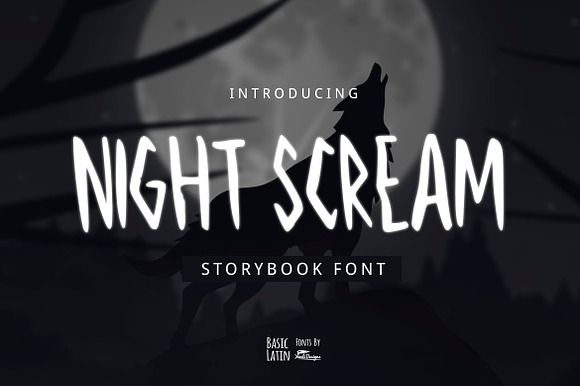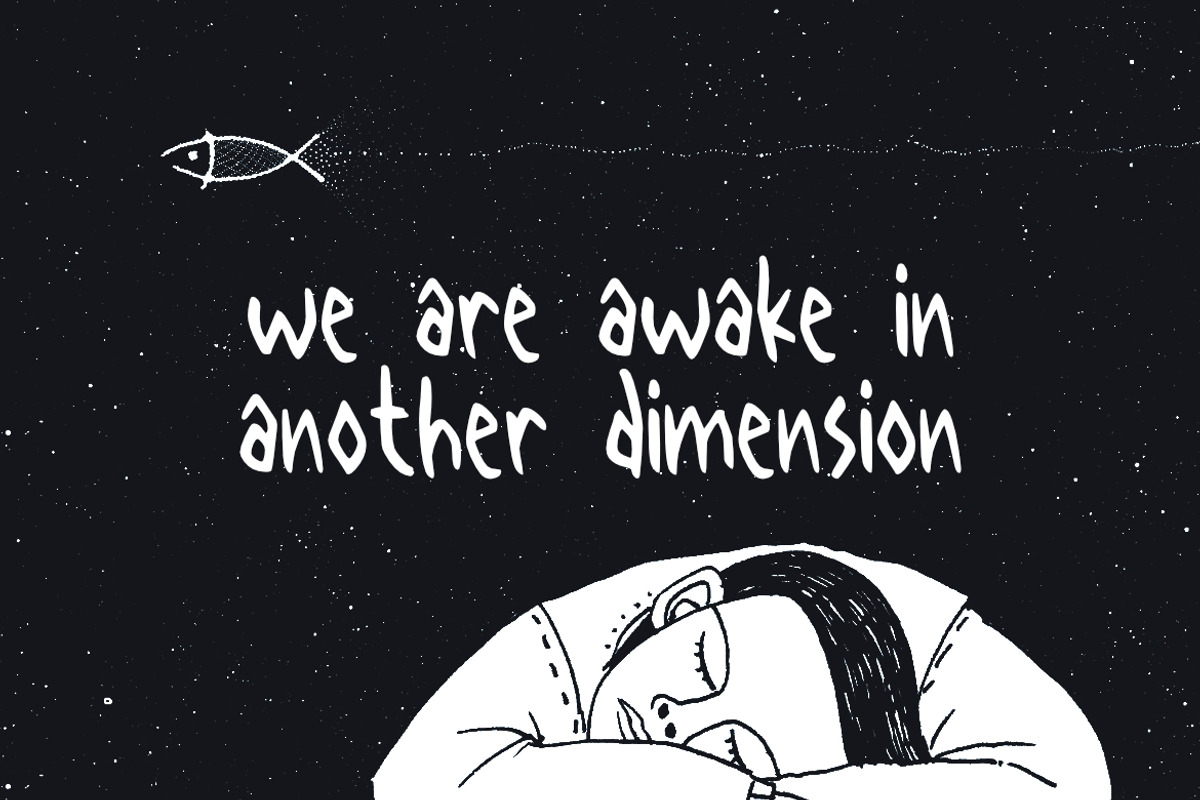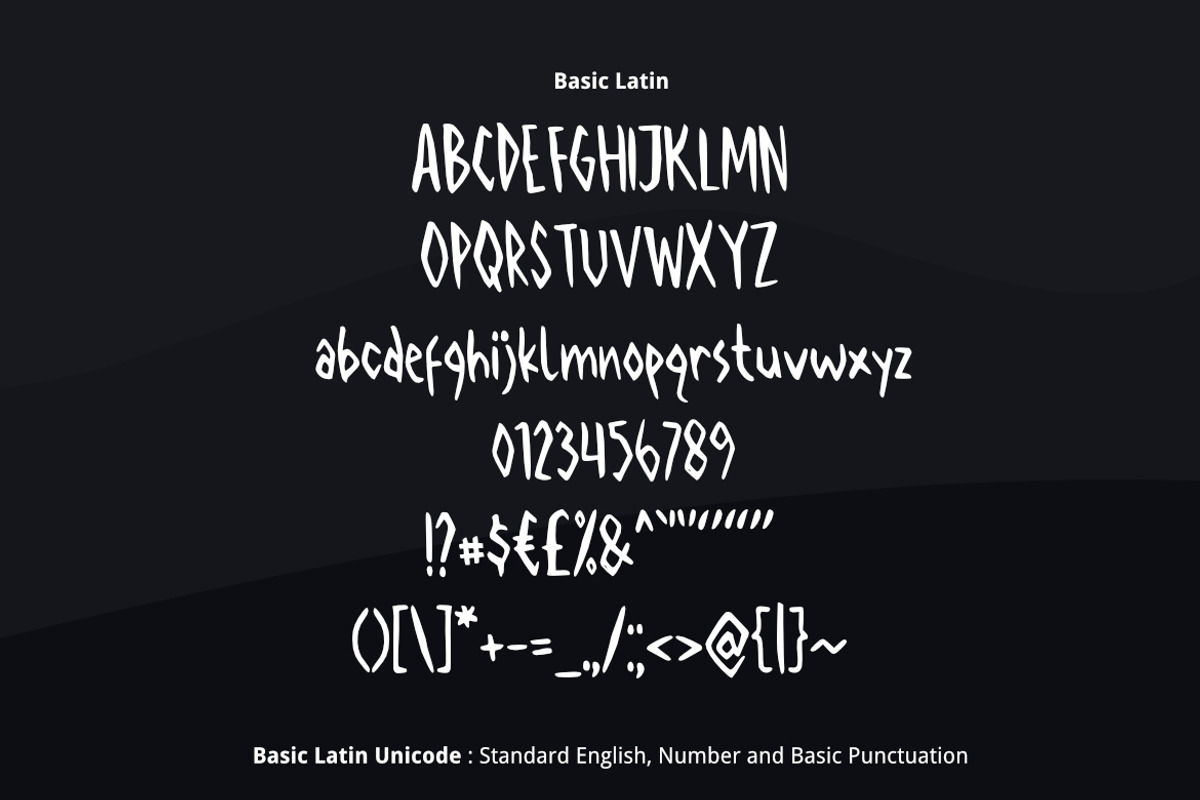
Night Scream Font
Night Scream font is simple multipurpose handmade font, suitable for many project children book, quotes, logo, heading, title etc.
Night Scream Font by YandiDesigns fits naturally into Branding, posters, packaging, typography.